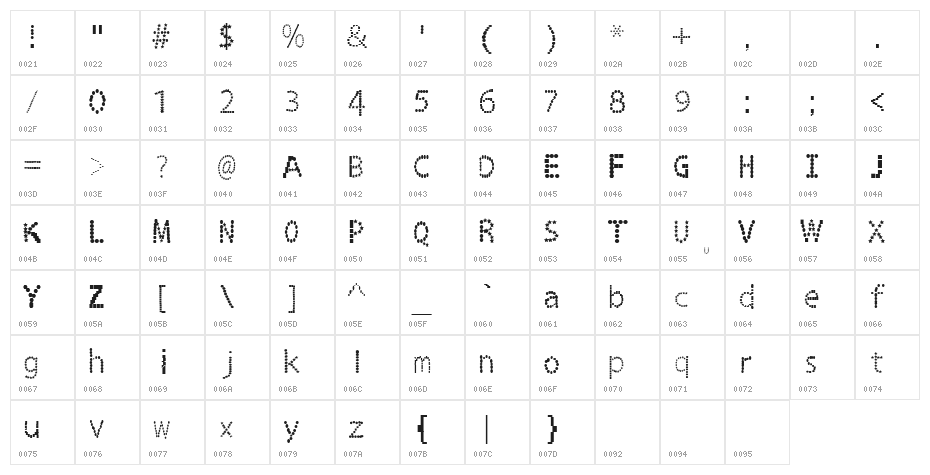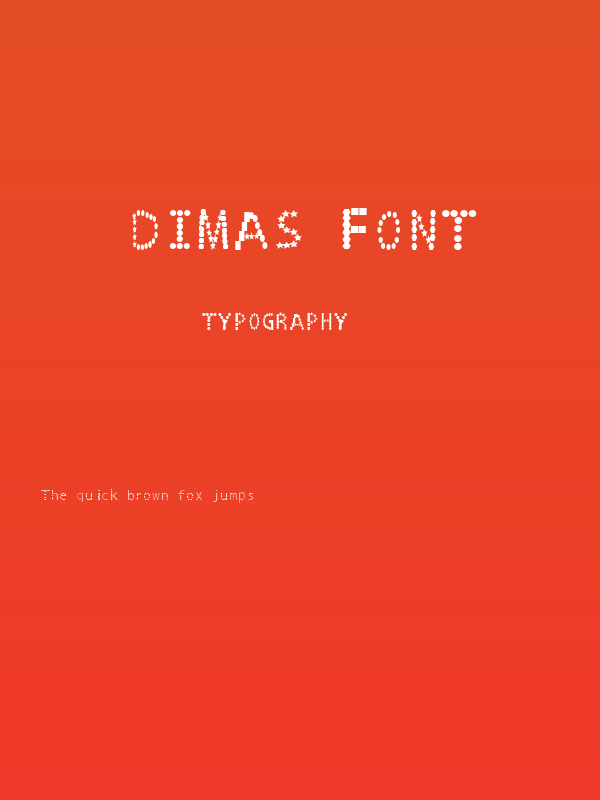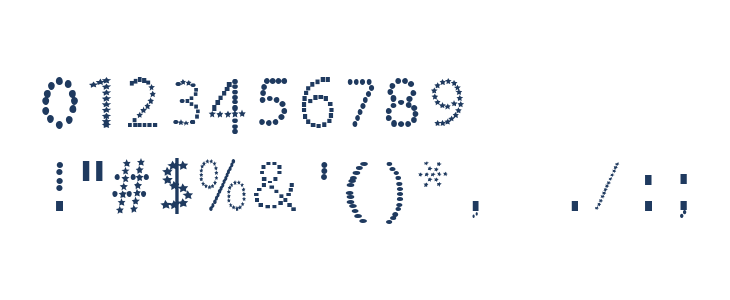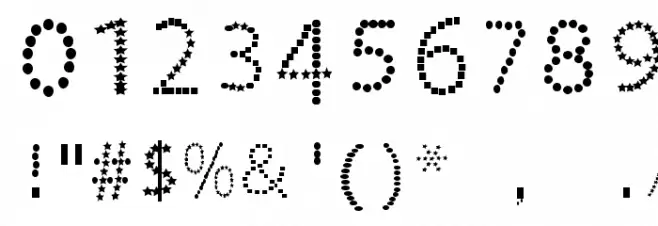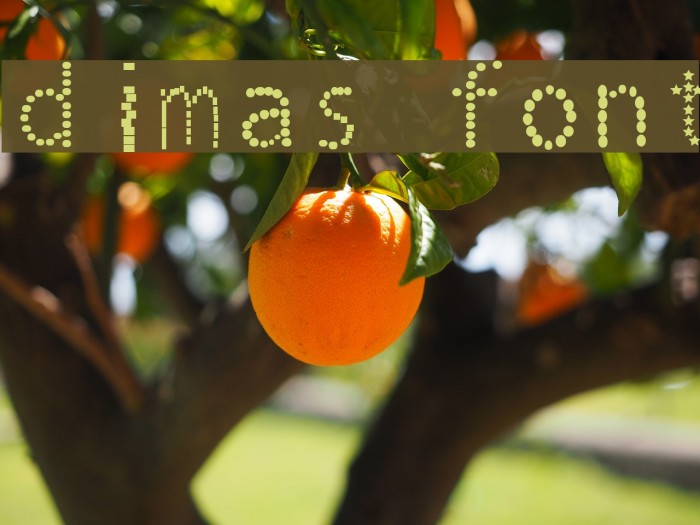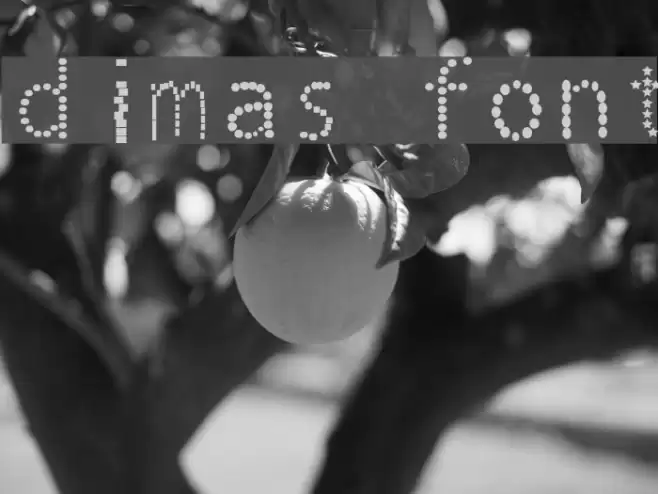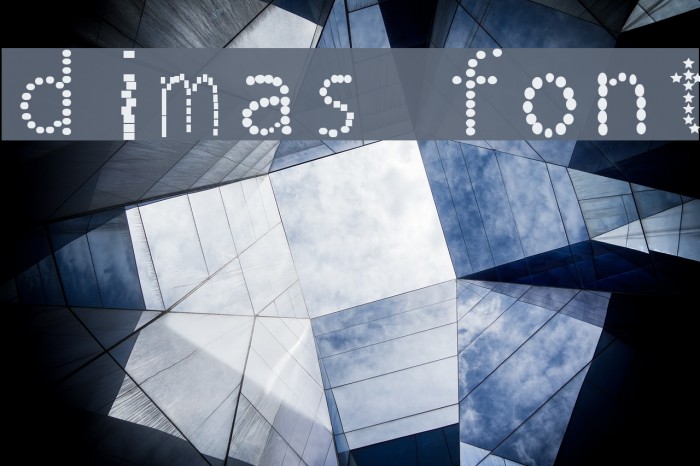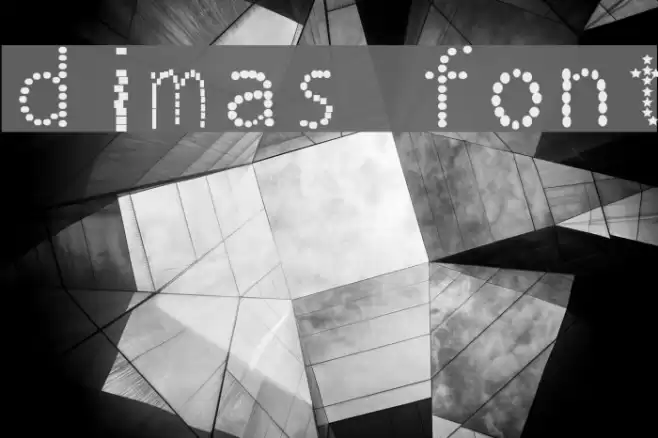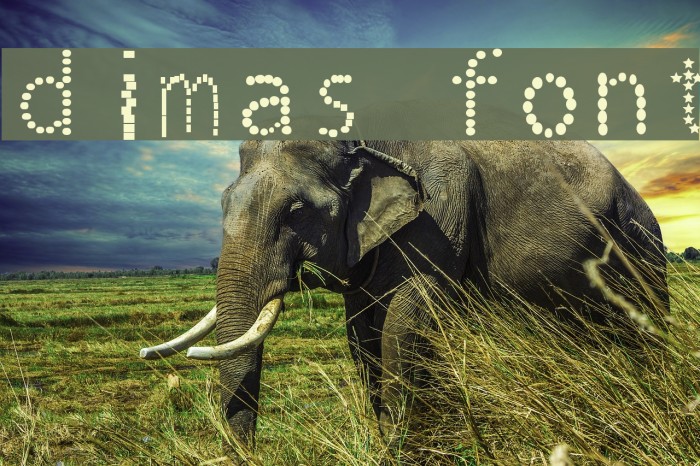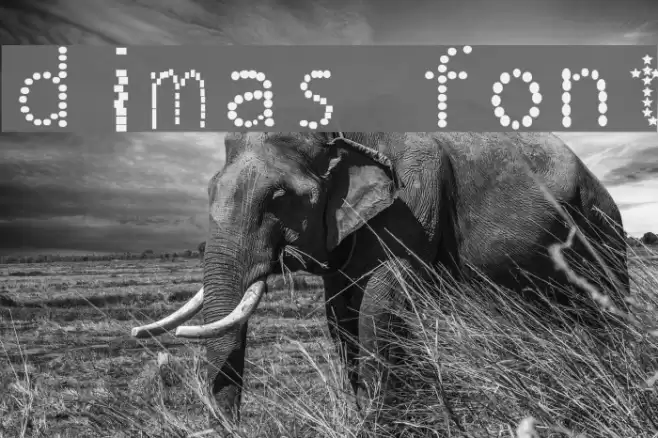
dimas font Font
dimas font Description
This font is a unique and playful design characterized by its use of dots and stars to form each letter and number. The uppercase and lowercase letters, as well as the numerals, are constructed with a series of circular and star-like shapes, giving it a distinct and eye-catching appearance. The font maintains a consistent pattern throughout, with each character being easily recognizable despite the unconventional style. The special characters follow the same design principle, ensuring uniformity across the entire typeface. This font is ideal for projects that require a fun and decorative touch, making it suitable for creative and artistic applications.
| Proposed Projects | Ideal for children's books, party invitations, posters, and any project needing a whimsical and decorative touch. |